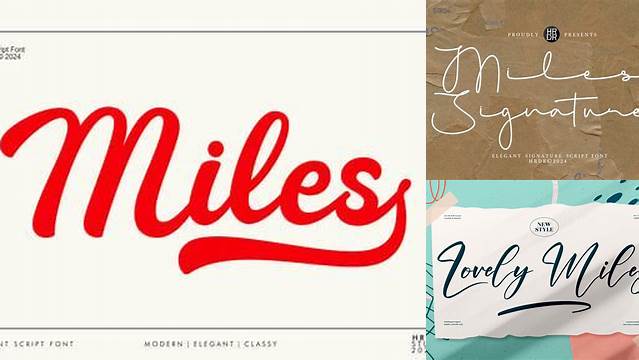
Hey guys! If you're on the hunt for a font that screams elegance and sophistication, you've landed in the right place. Today, we're diving deep into the world of the Miles Elegant Script Font, and the best part? You can snag it for free! This font is a total game-changer for any project that needs a touch of class, whether it's designing wedding invitations, crafting a stunning logo, or adding flair to your website. Let's get into all the details about what makes this font so special, how to download it, and how to best use it to make your designs pop. We'll cover everything from its design features to its versatility and how it can elevate your creative projects. Get ready to transform your designs with the charm and grace of the Miles Elegant Script Font! This font is more than just letters; it's an experience, adding a personal touch that makes your work truly memorable. Let's get started, shall we? We'll cover the essence of Miles Elegant Script Font, ensuring you're well-equipped to use it effectively.
1. Unveiling the Beauty: What is the Miles Elegant Script Font?
So, what exactly is the Miles Elegant Script Font? Well, in a nutshell, it's a beautifully designed script font that's perfect for adding a touch of sophistication and elegance to your projects. It’s a typeface that mimics handwriting, giving off a warm, personal vibe that's hard to resist. Imagine those classy wedding invites, those chic branding materials, or even just a personal blog with a touch of flair – this font is your go-to. The design typically includes flowing lines, elegant curves, and a refined aesthetic, making it ideal for projects that require a touch of luxury or a personalized feel. It's designed to be both readable and visually appealing, ensuring that your message is conveyed beautifully. Miles Elegant Script Font is a work of art in itself. It's about creating a connection with your audience. The font often features a range of special characters and ligatures that add even more personality and uniqueness to your designs. This allows you to create a more natural and flowing look. The subtle details in each letter contribute to the font's overall elegance, making it stand out from the crowd. Miles Elegant Script Font is all about bringing an artistic touch to your work. It's the little things that make this font so special, like the way the letters connect and flow together. That’s the magic of Miles Elegant Script Font.
2. Design Features: Exploring the Characteristics of the Font
Let's dig a little deeper into what makes this font tick. The Miles Elegant Script Font boasts several design features that set it apart. The strokes of the letters are usually smooth and flowing, creating a sense of movement and grace. Many versions come with a variety of swashes and alternative characters, allowing for greater customization and the creation of unique designs. Ligatures, where two or more letters are joined together, are common in script fonts. These not only add to the aesthetic appeal but also improve readability. The contrast between thick and thin strokes is a hallmark of this font, adding depth and visual interest. In addition to aesthetic considerations, you'll often find that the font is designed with legibility in mind. Even with its decorative flair, it's still easy to read, which is essential for effective communication. The kerning (the space between letters) is carefully considered to ensure that the text looks balanced and harmonious. Understanding these design features empowers you to use the Miles Elegant Script Font effectively, enhancing your creative projects. It is all about understanding how the font works and leveraging its features to your advantage. With the right application, the font can make your designs really shine! It is about finding the right balance and creating visually stunning compositions.